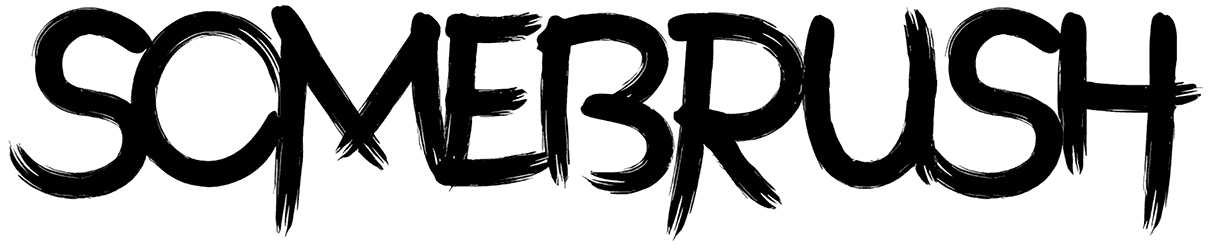
SomeBrush Font
SomeBrush is an excellent choice for enhancing the visual appeal of your project. Despite the absence of lowercase letters, this script brush font features aggressive and shabby elements and is ideal for adding a saucy aspect to your undertaking. SomeBrush is an excellent alternative font for creating posters, packaging, and apparel designs, among other things.
SomeBrush, brush fonts are fonts inspired by scribbles on screen printing.
This font is perfect for challenging jobs, titles, t-shirts, websites, hoodies, and various print and digital media with energy. Single Fighter is ideal for logos, clothing, quotes, product packaging, or anything that requires a typographic turbo boost.